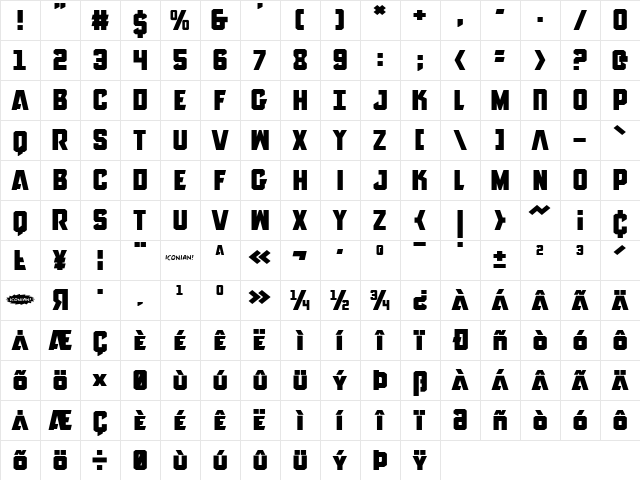
Anitlles Expanded Expanded
Design Context for Anitlles Expanded Typeface
Anitlles Expanded takes a measured approach to typography — its balanced proportions and neutral character make it a reliable workhorse for both digital and print work.